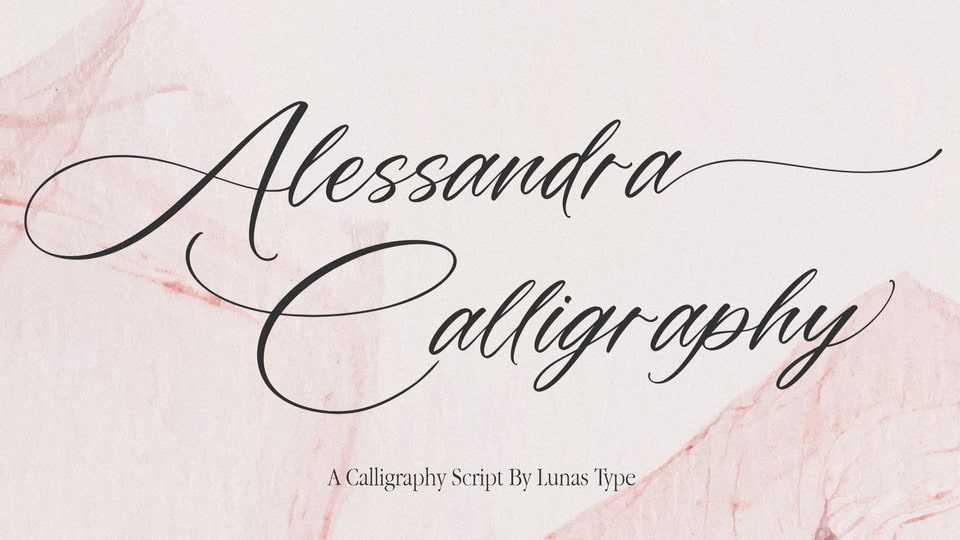
Download Alessandra font, a stunning script typeface inspired by the elegance of Victorian style. With its graceful curves and intricate details, Alessandra exudes a timeless beauty that captivates the senses.
Designer: Lunas Type